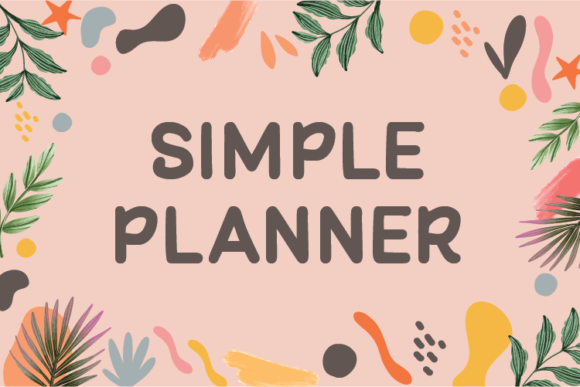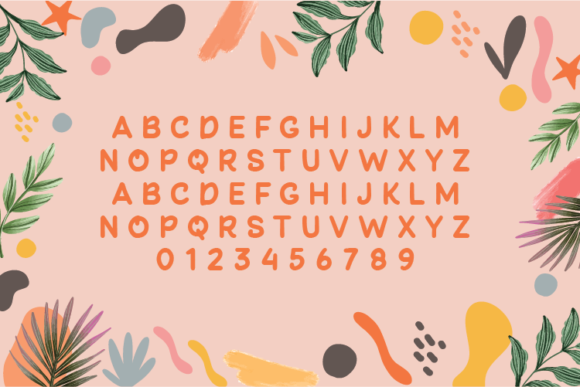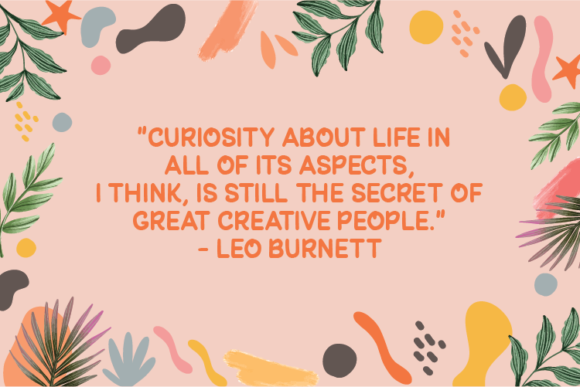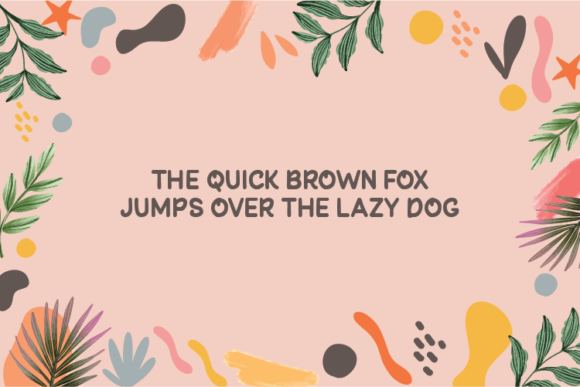
Simple Planner Font
About Simple Planner Font
Simple Planner is a natural handwritten font without changing a single node in each character’s indentation, this makes this font very interesting and unique. Perfect for quotes, notes, tees, and any product design.